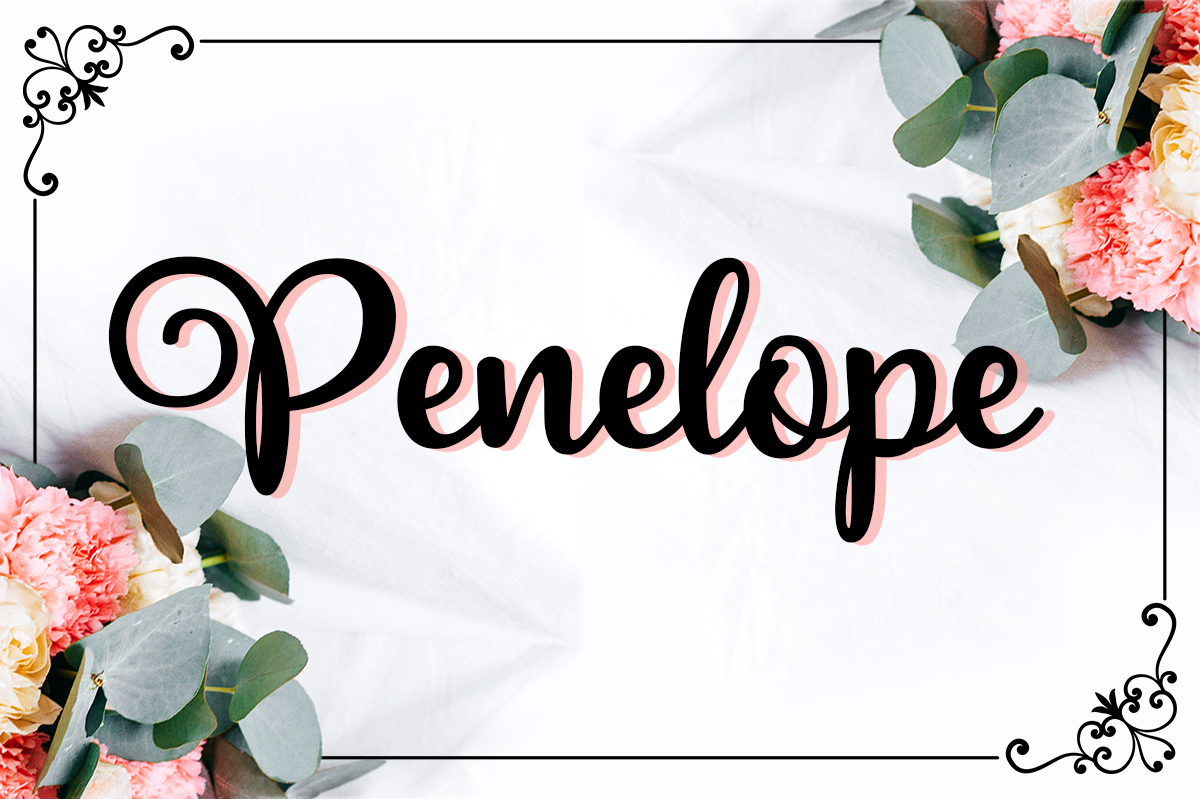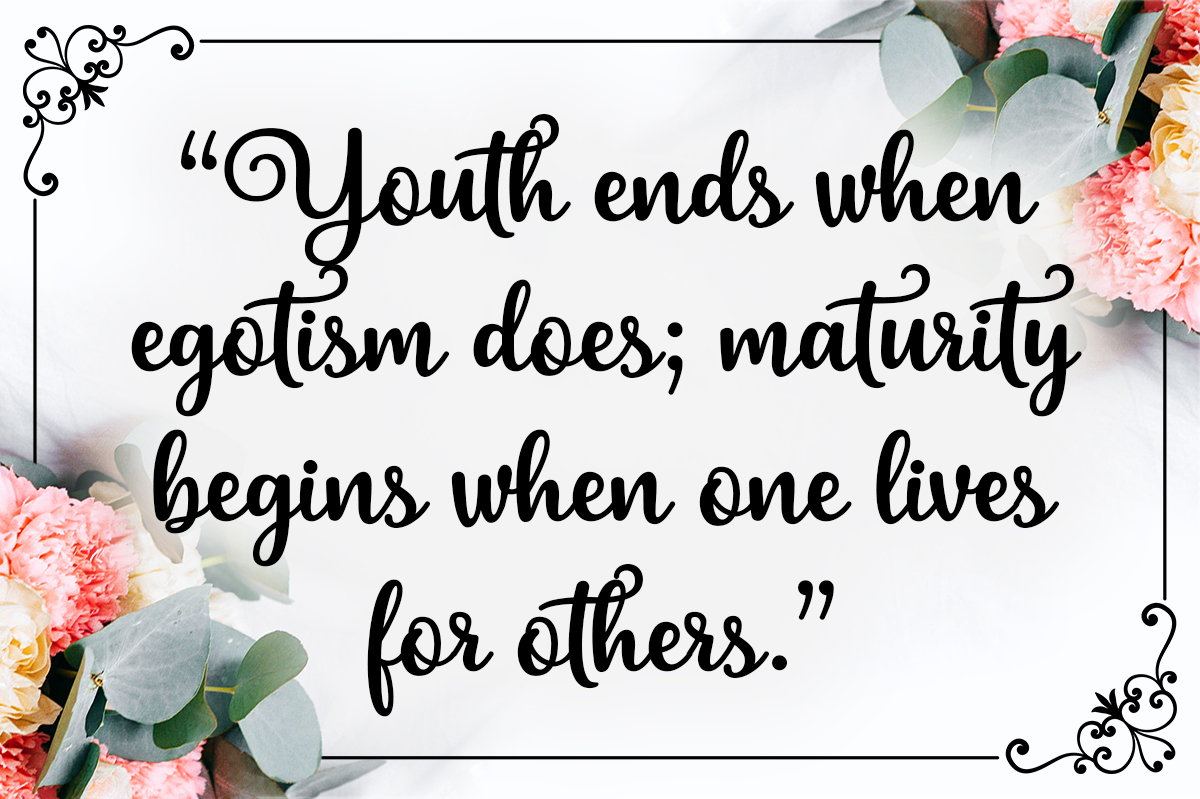
Penelope Font
About Penelope Font
Penelope is a cutesy handwritten script font, perfect for feminine and elegant projects. This well weighted script reads well and has a timeless, classic appeal.